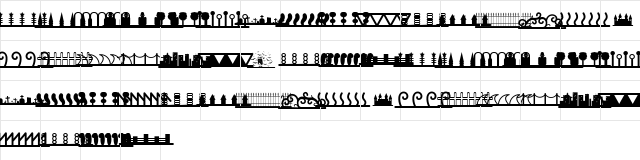
Header Ornament Regular
| Foundry | dcoxy Medina Gregory |
| Designer | dcoxy Medina Gregory |
Design Context for Header Ornament Typeface
Header Ornament brings ornamental detail and strong personality to headlines and identities, where visual impact matters more than quiet functionality.
Font Pairing: Pair with a clean neutral sans-serif for body copy to let Header Ornament's character lead without overwhelming the composition.
Pro Tip: Treat Header Ornament as the centrepiece of your typographic hierarchy. One strong heading set in a decorative face can carry an entire layout.